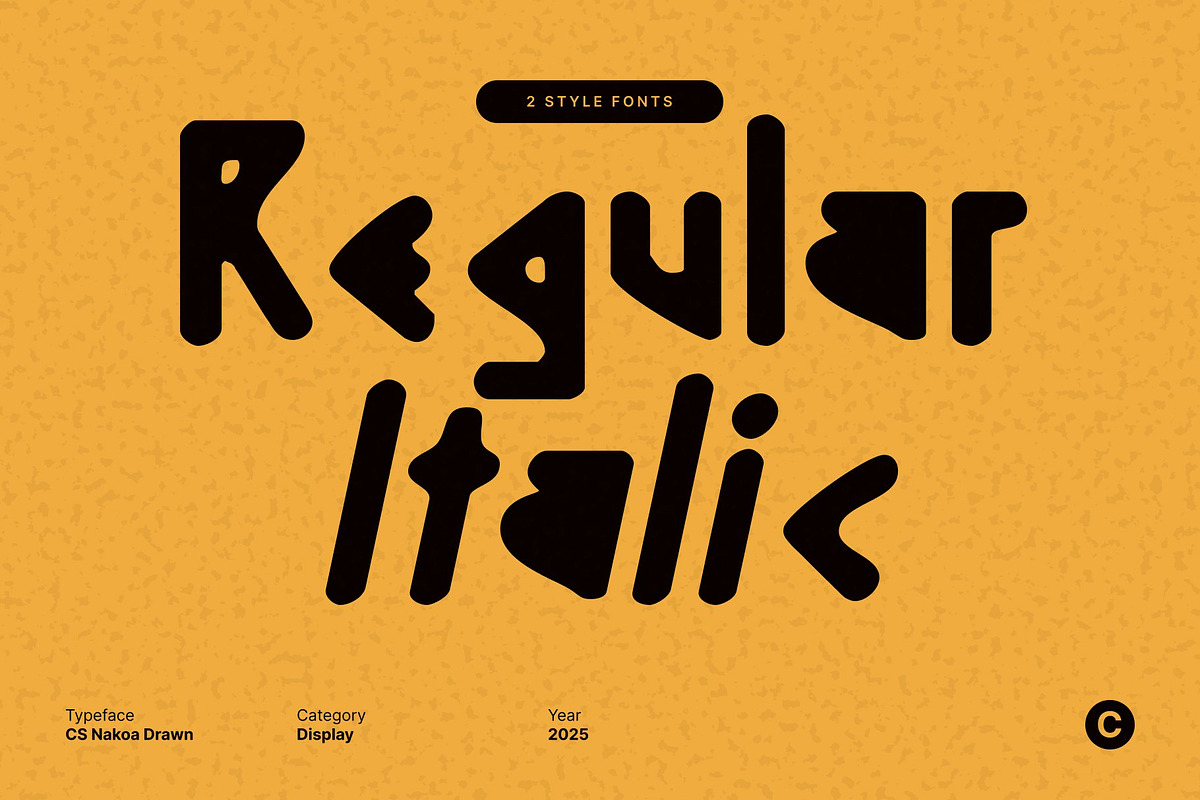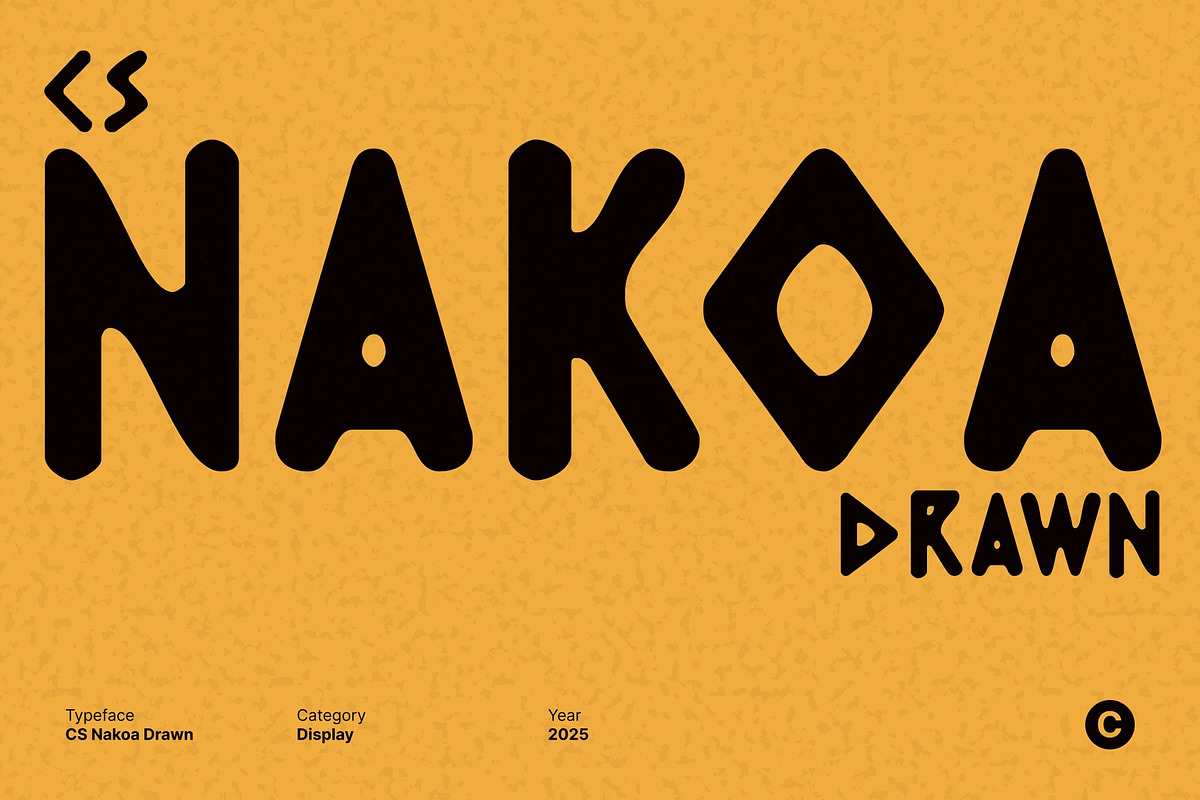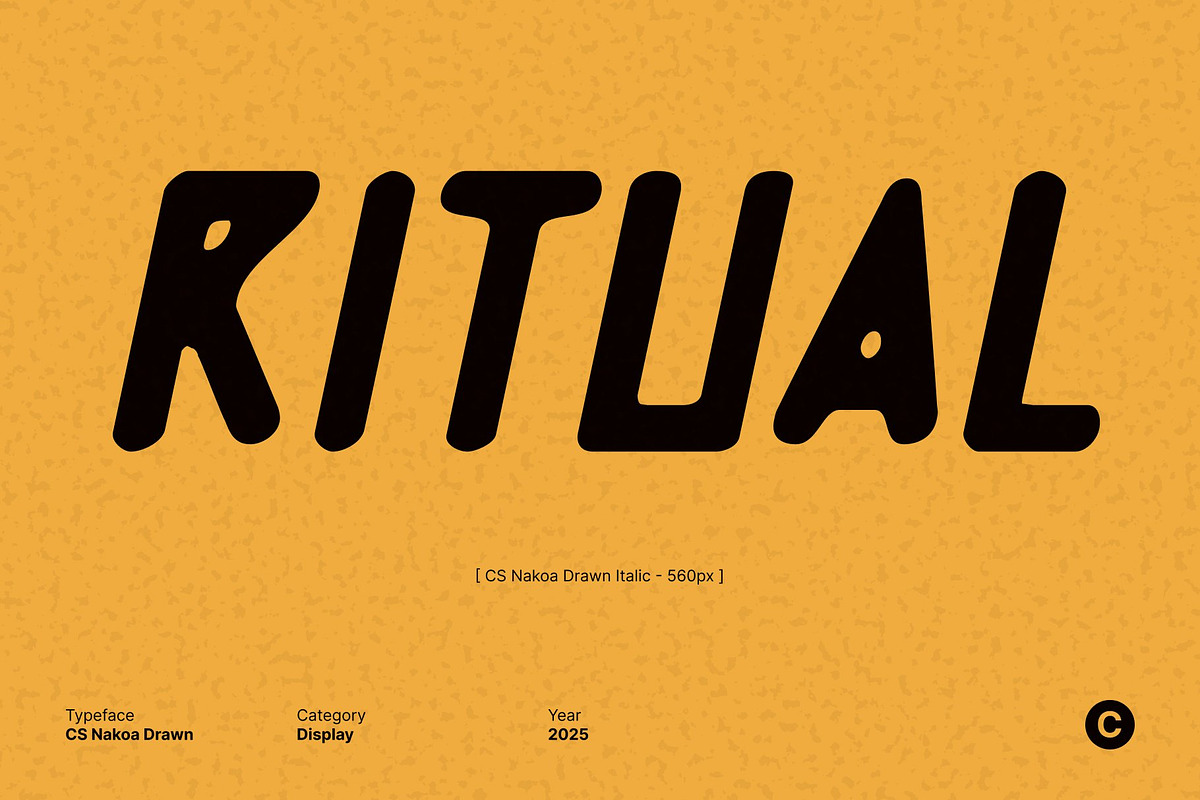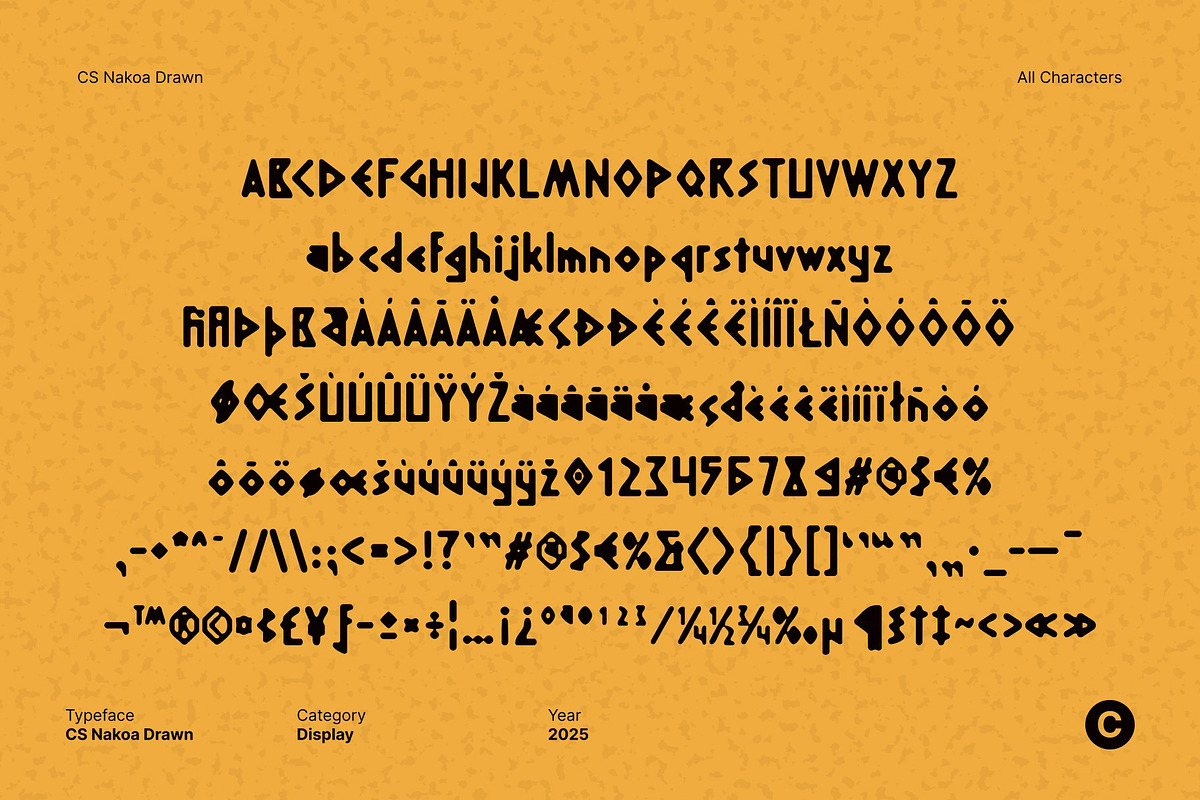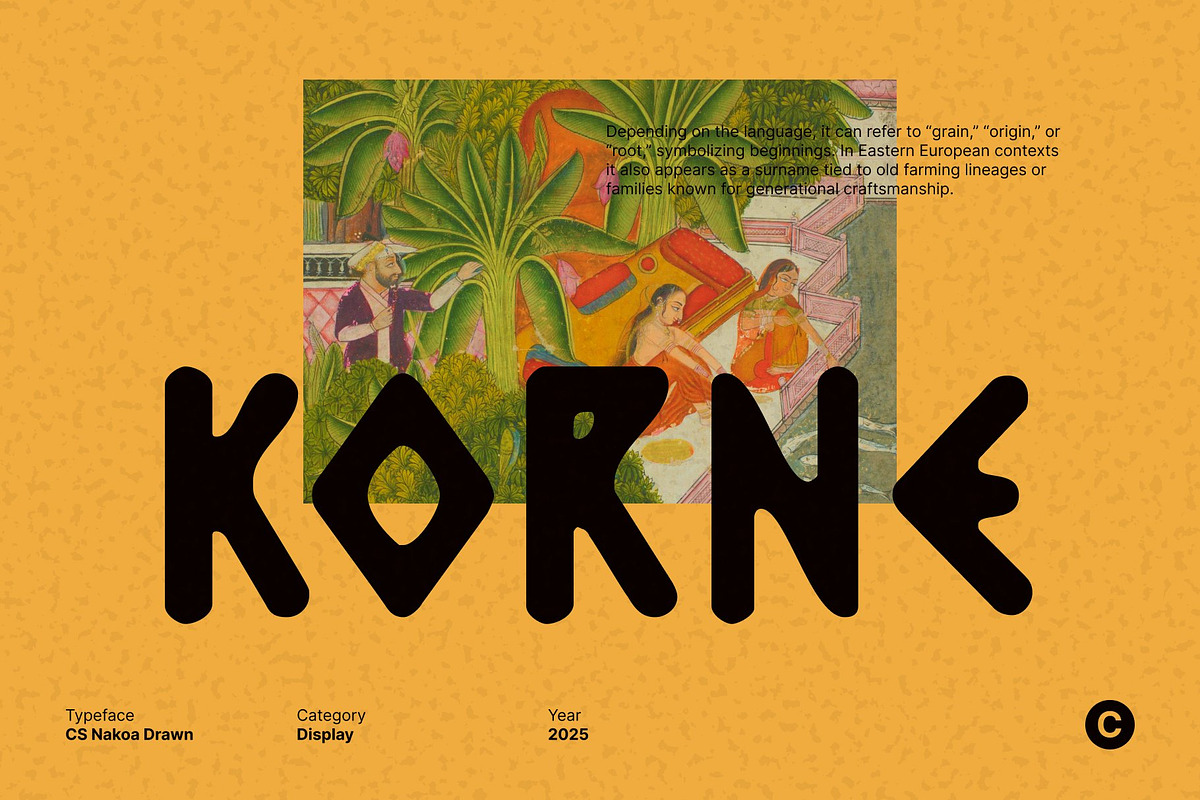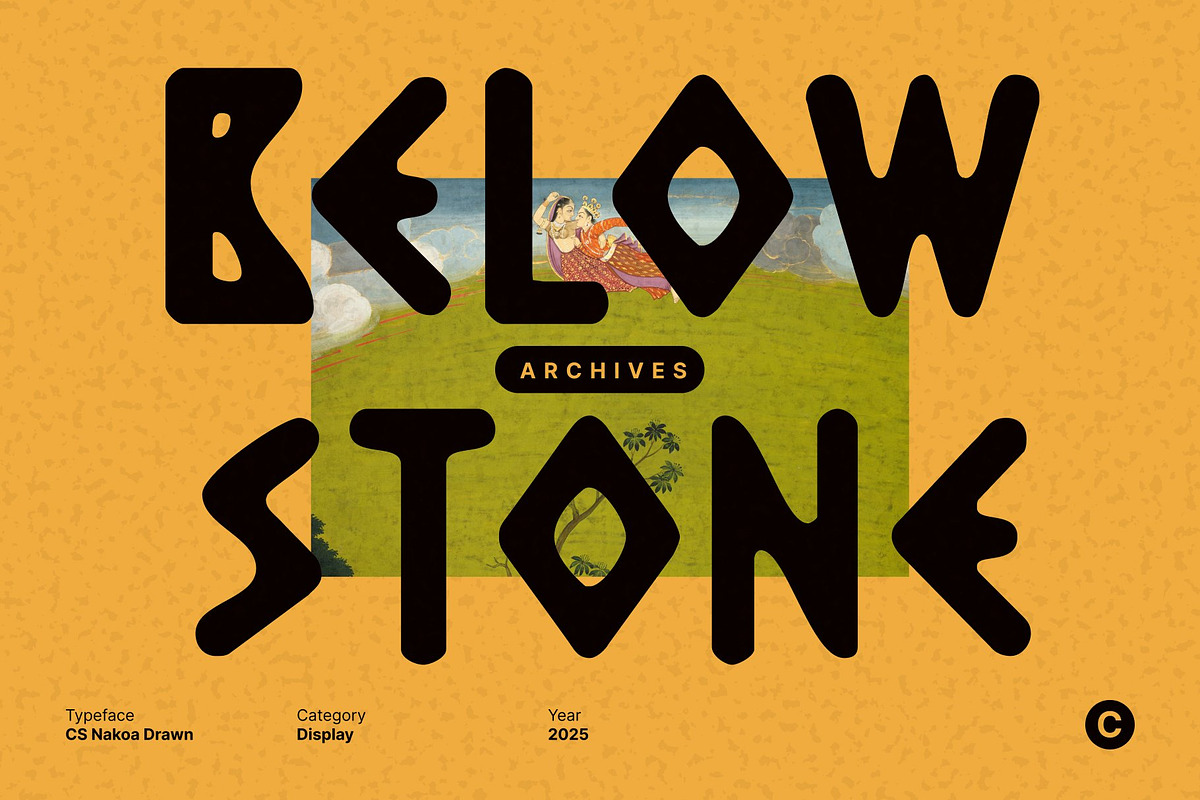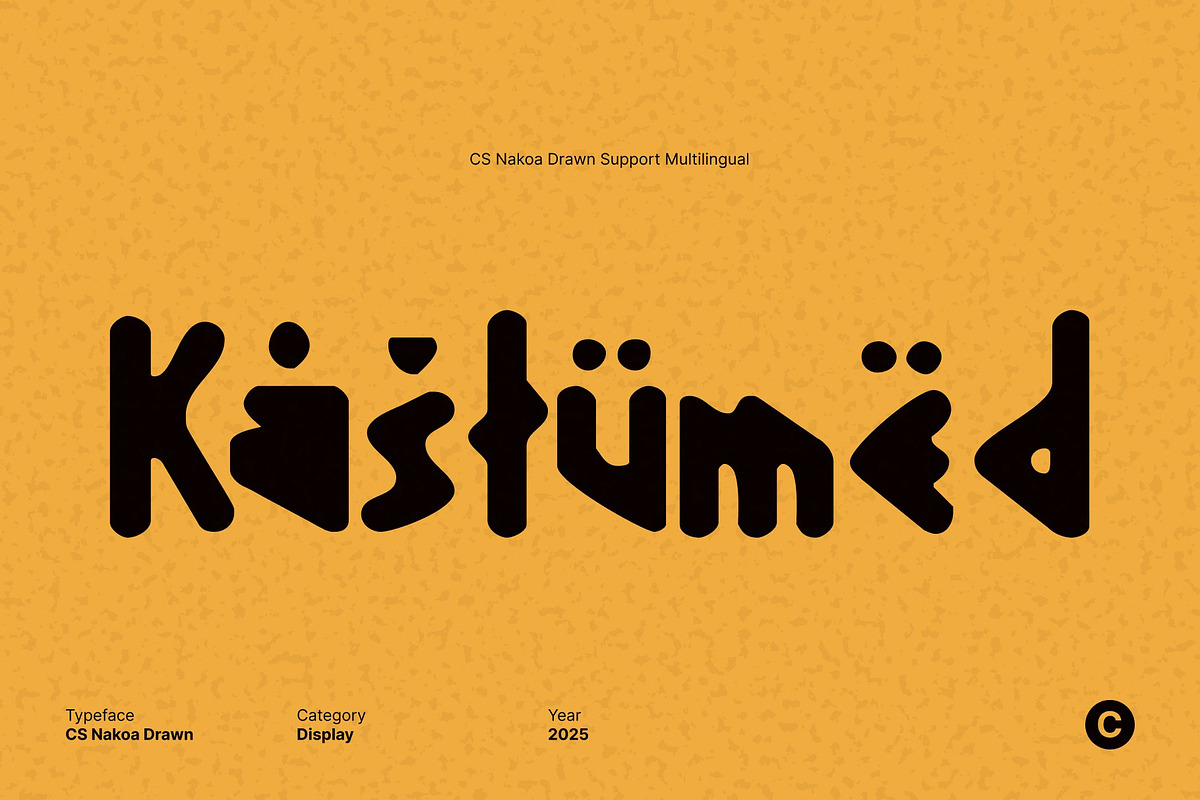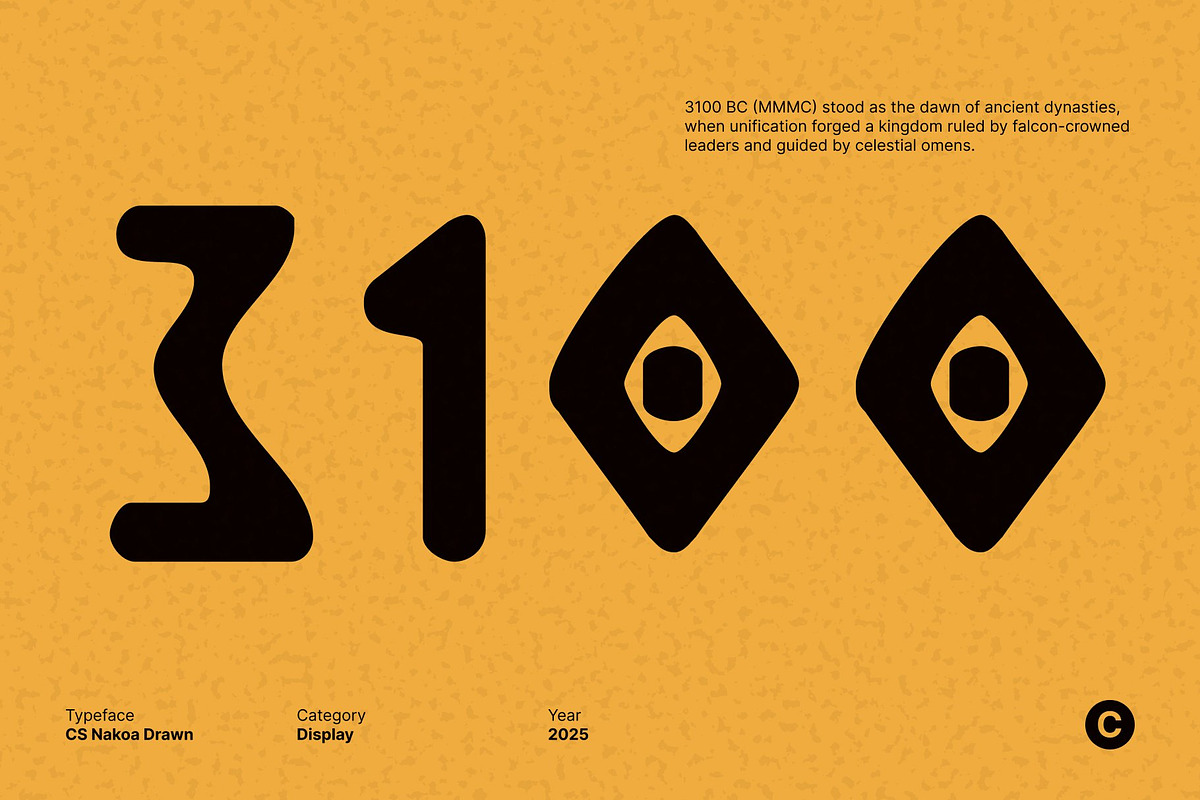
CS Nakoa Drawn
CS Nakoa Drawn – Greek-Inspired Sans Serif with Ancient Hand-Drawn Character
Ancient Stone Carving Inspiration for Timeless Design This font evokes the strength and solidity of ancient Greek stone carvings. Its geometric yet historically inspired shapes convey a sense of heritage, stability, and classic beauty, making it ideal for designs that aim to blend historical gravitas with modern sensibility.
Hand-Drawn Texture for Unique Geometric Expression The drawn effect adds subtle irregularities and handcrafted charm to the structured letterforms. Each character exhibits a unique geometric rhythm, combining precision with an artisanal touch. This creates a font that feels both robust and visually engaging, offering depth and personality to every design.
Perfect for Editorials, Branding, and Timeless Projects This font excels in applications that require both strength and sophistication. Use it for editorial layouts, luxury branding, architectural or historical publications, and timeless design projects. Its classical inspiration paired with modern drawn artistry ensures your work stands out with elegance and authority.
A Typeface that Balances History and Modern Creativity By merging Greek-inspired geometry with hand-drawn texture, delivers a font that is simultaneously historic and fresh. It’s ideal for designers seeking a typeface that communicates strength, uniqueness, and artistic refinement. This versatile display font provides a lasting visual impact while remaining expressive and memorable.